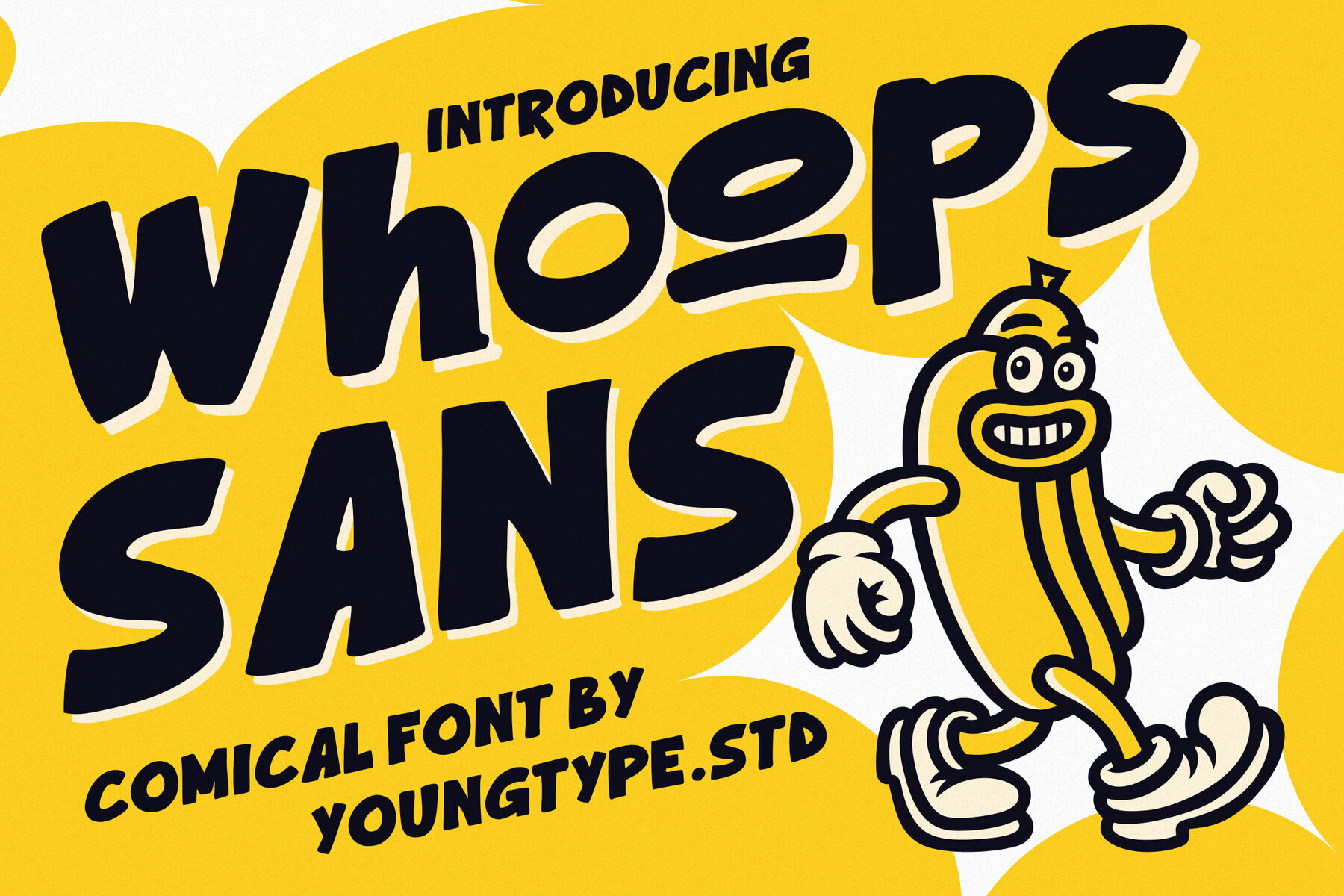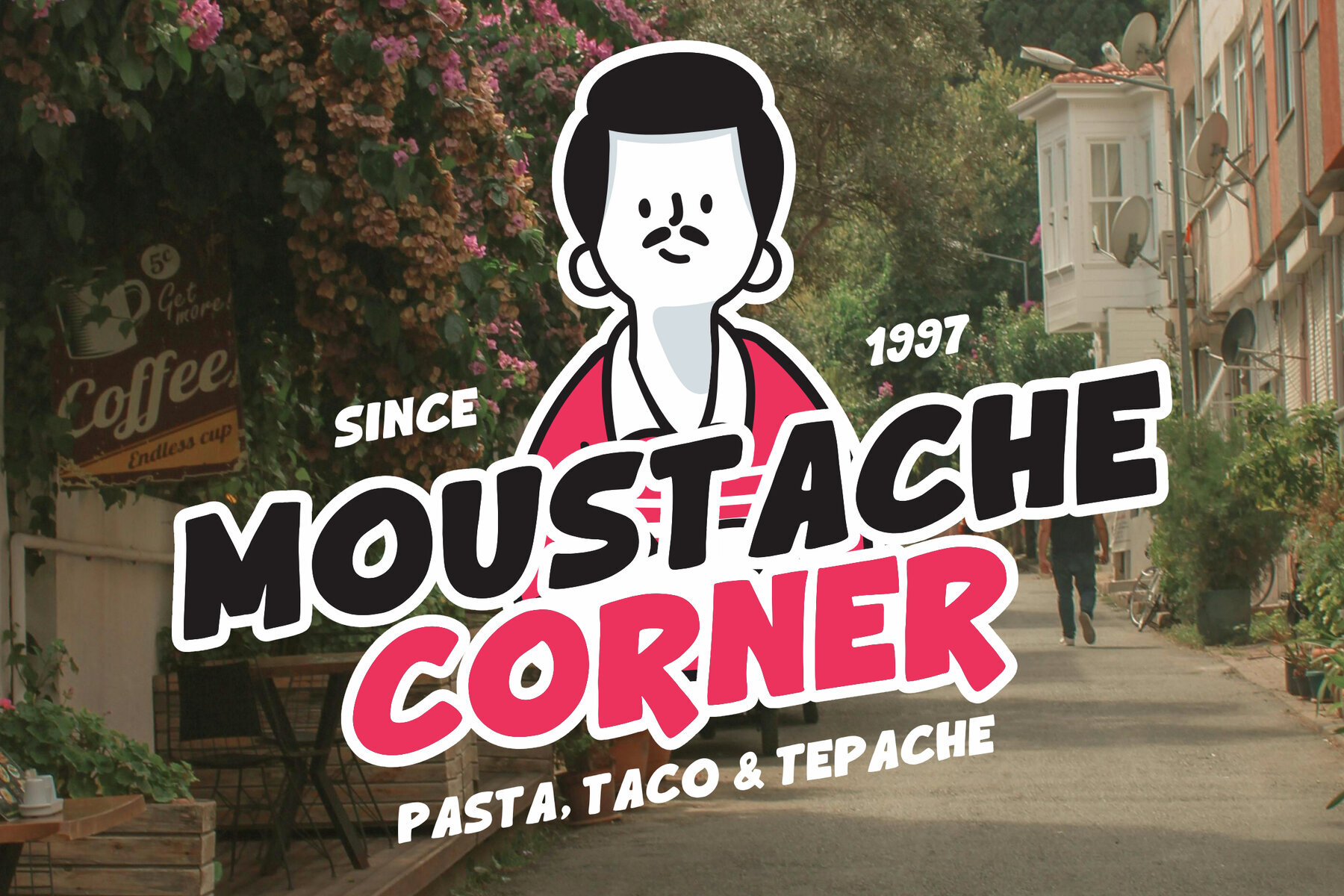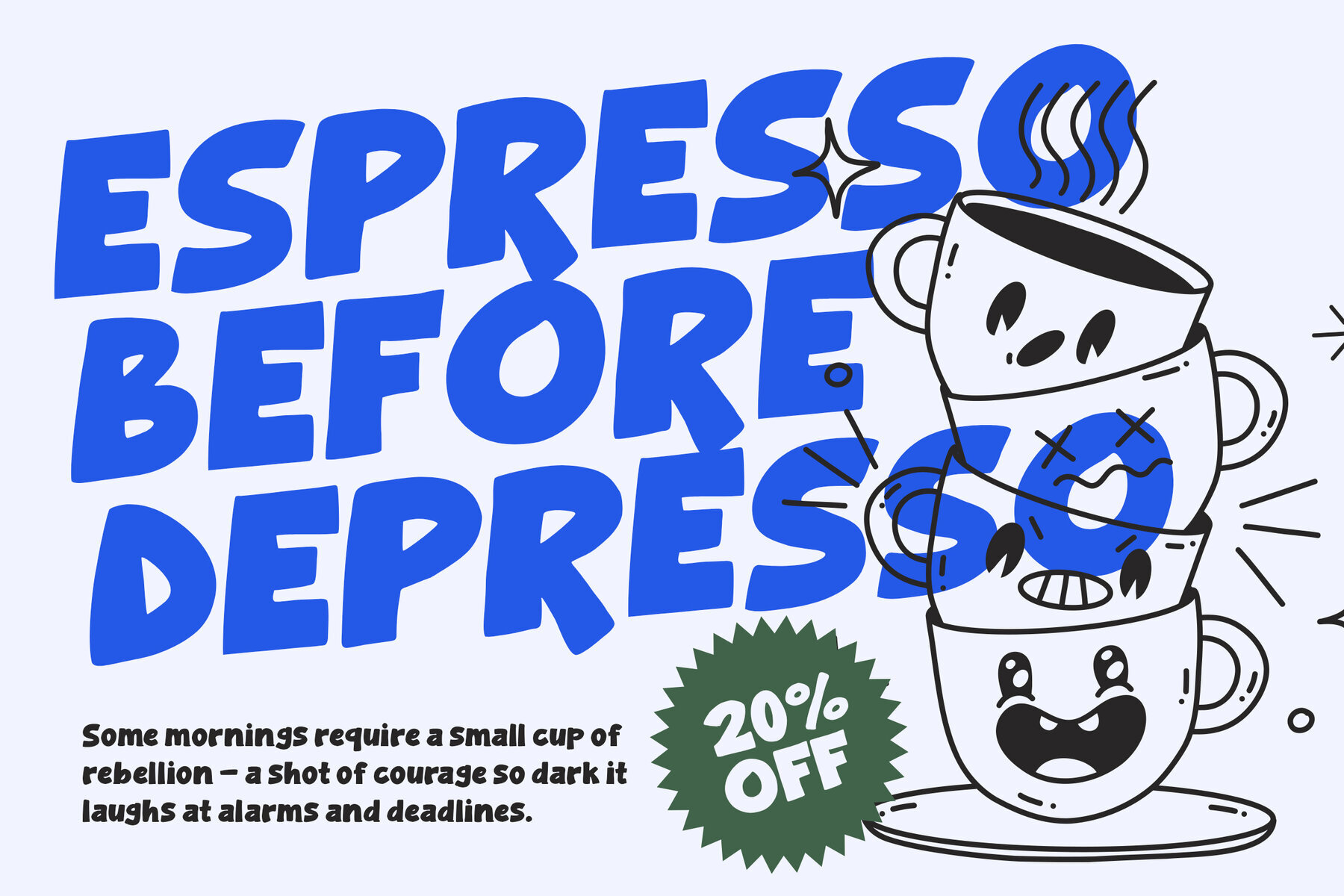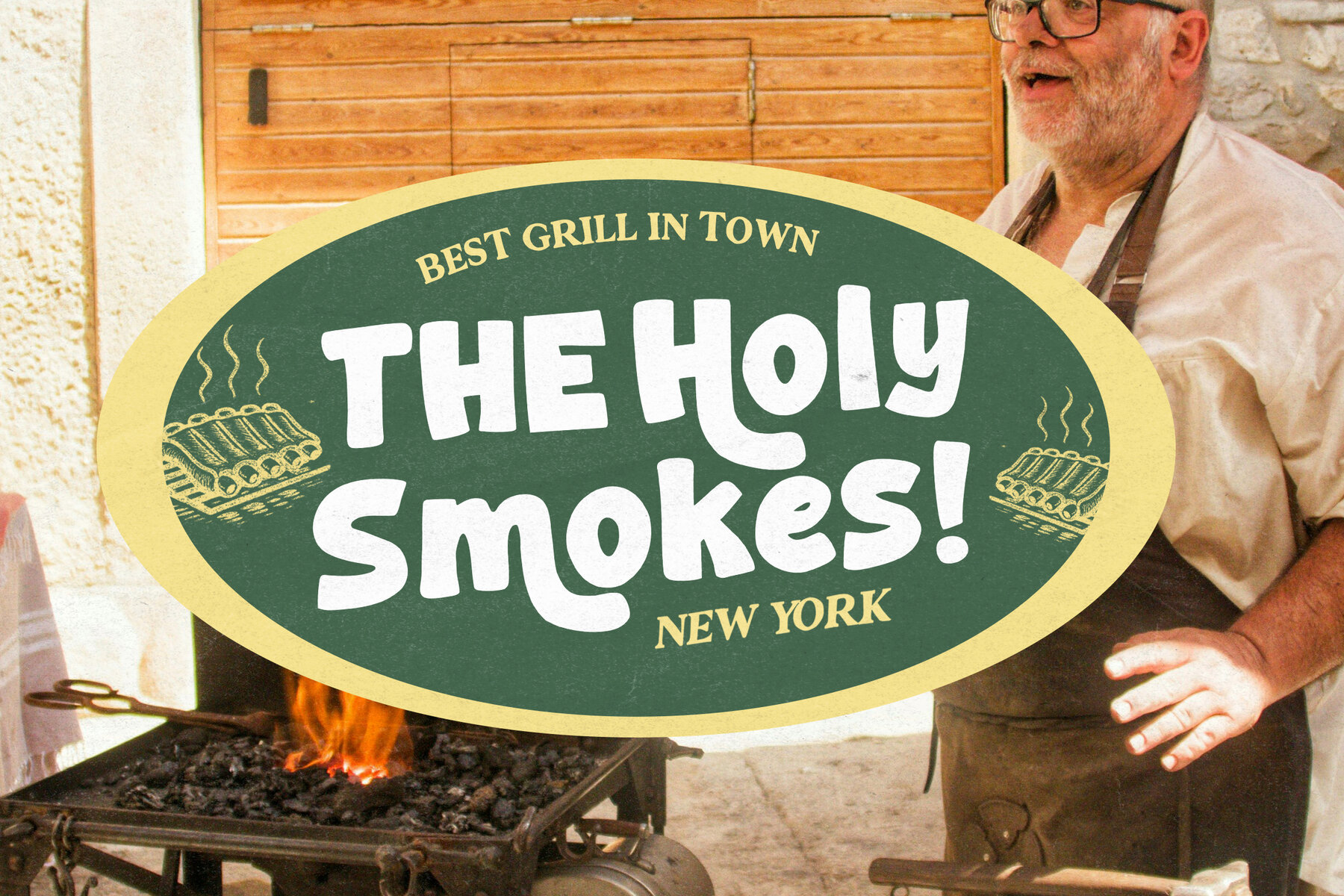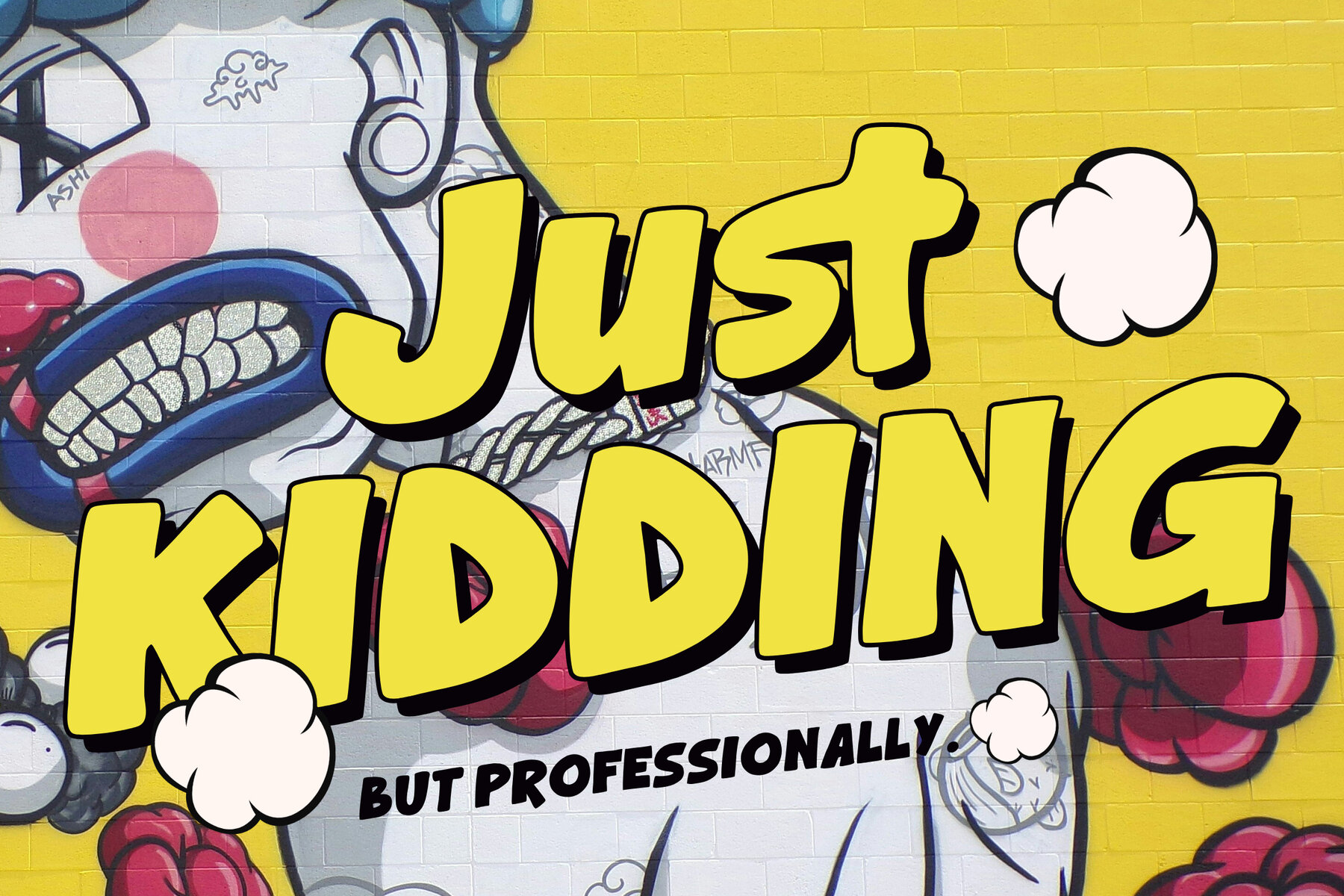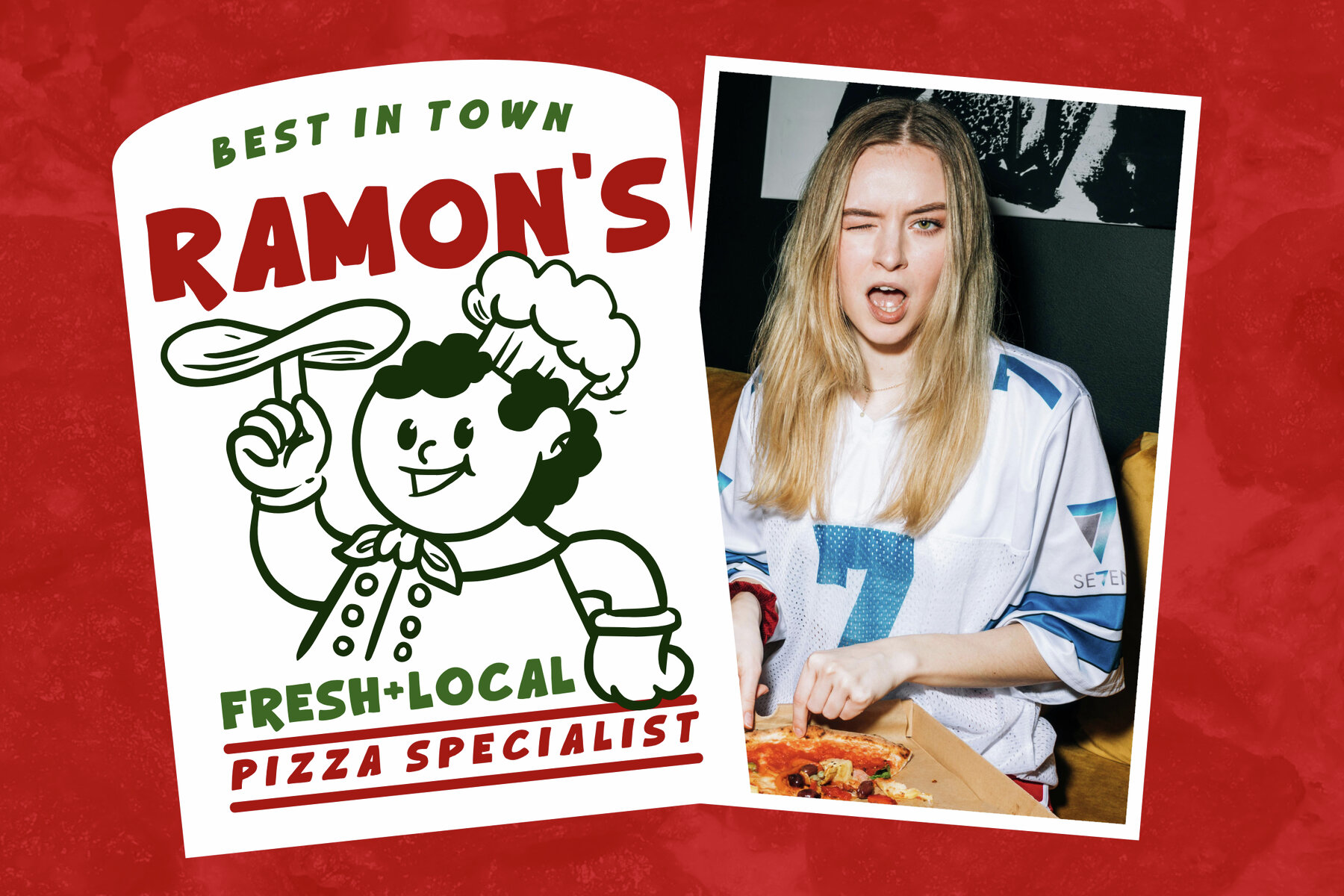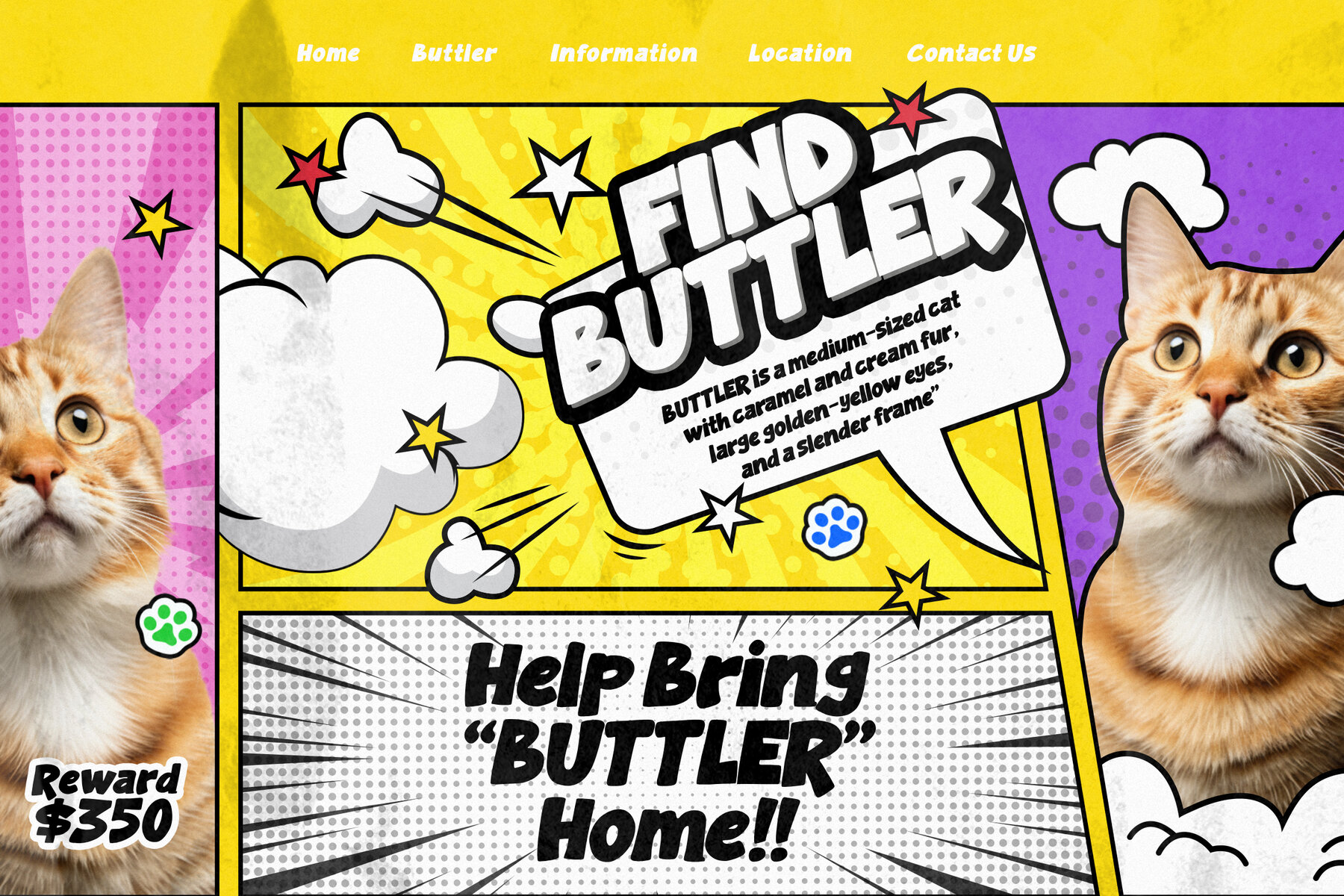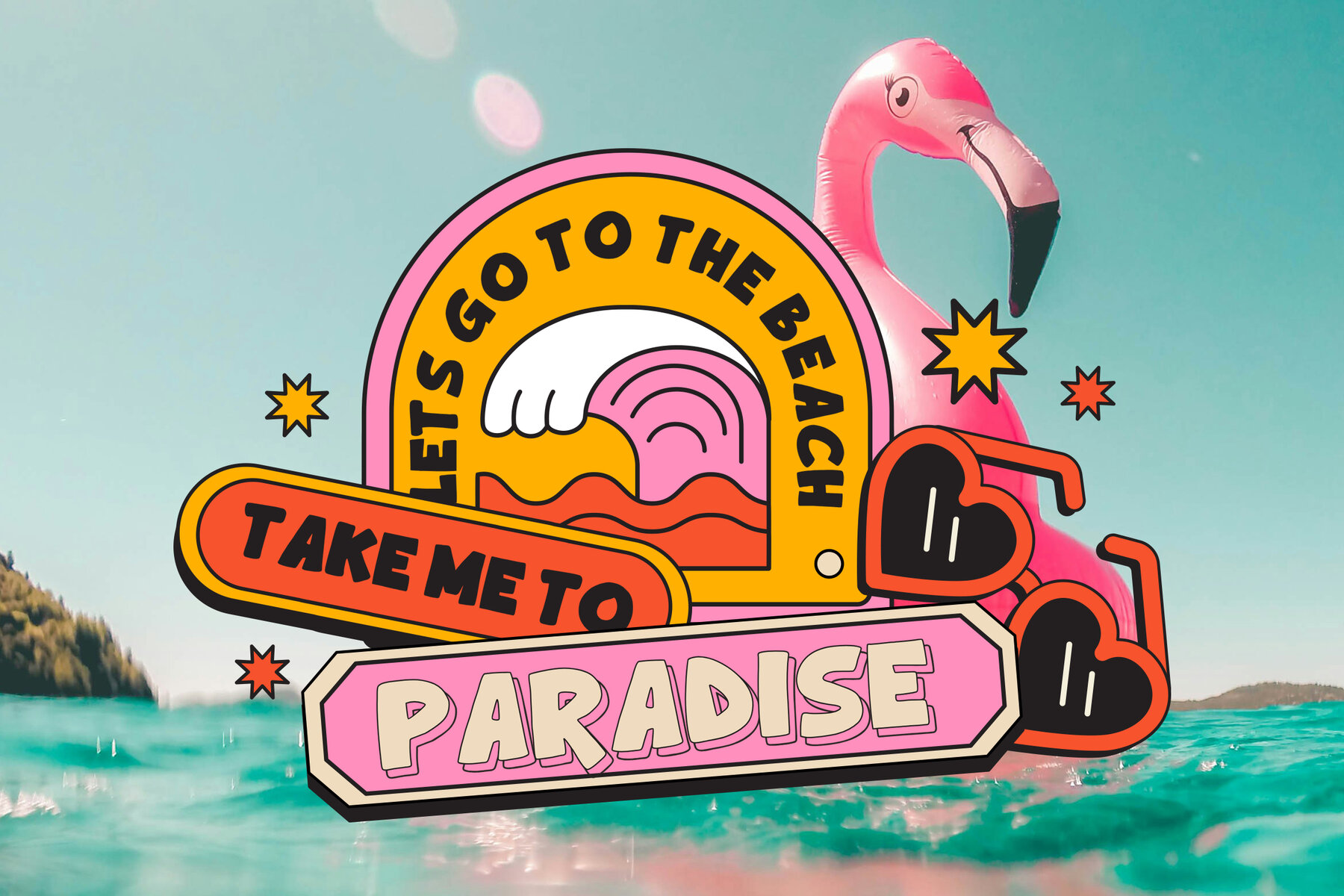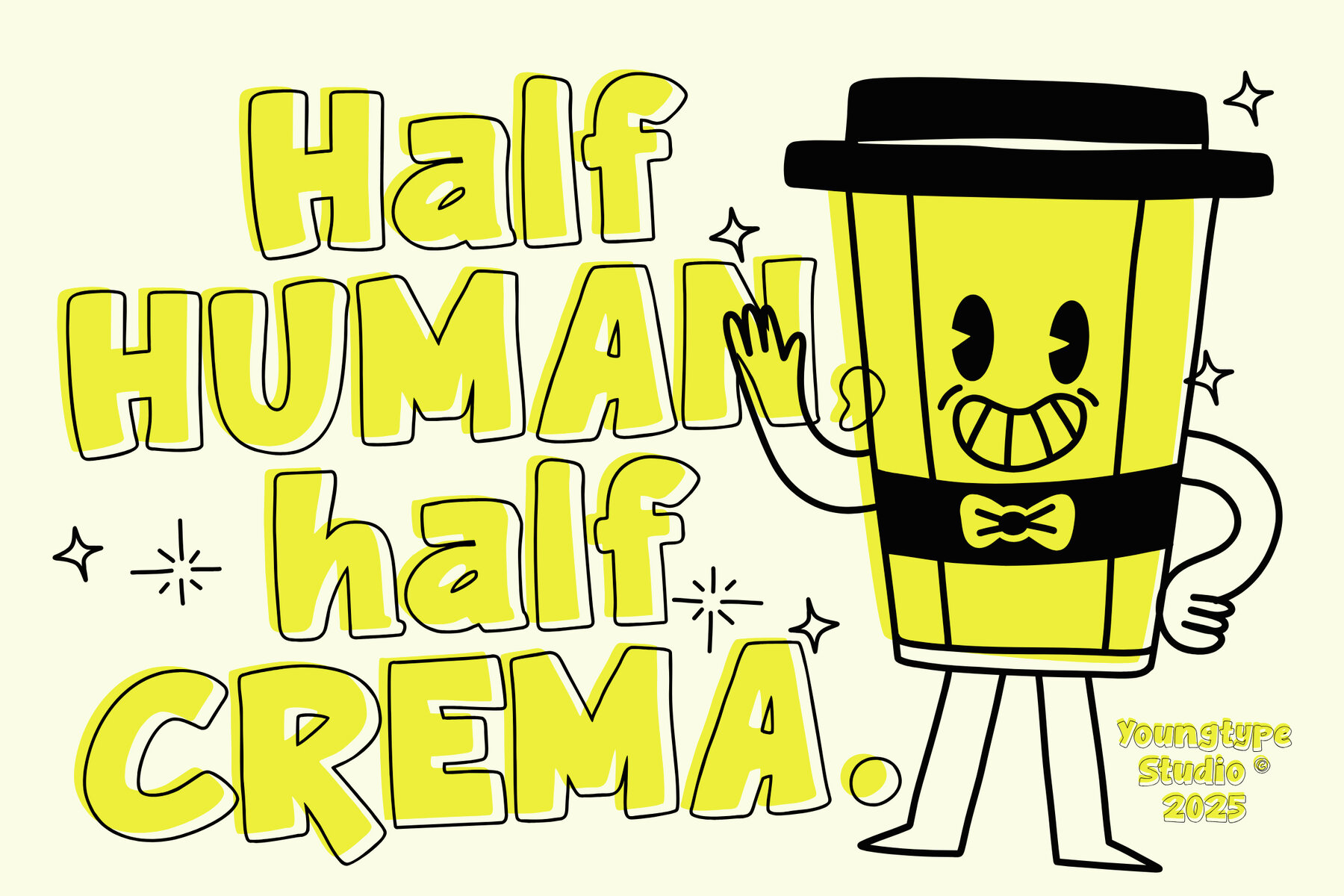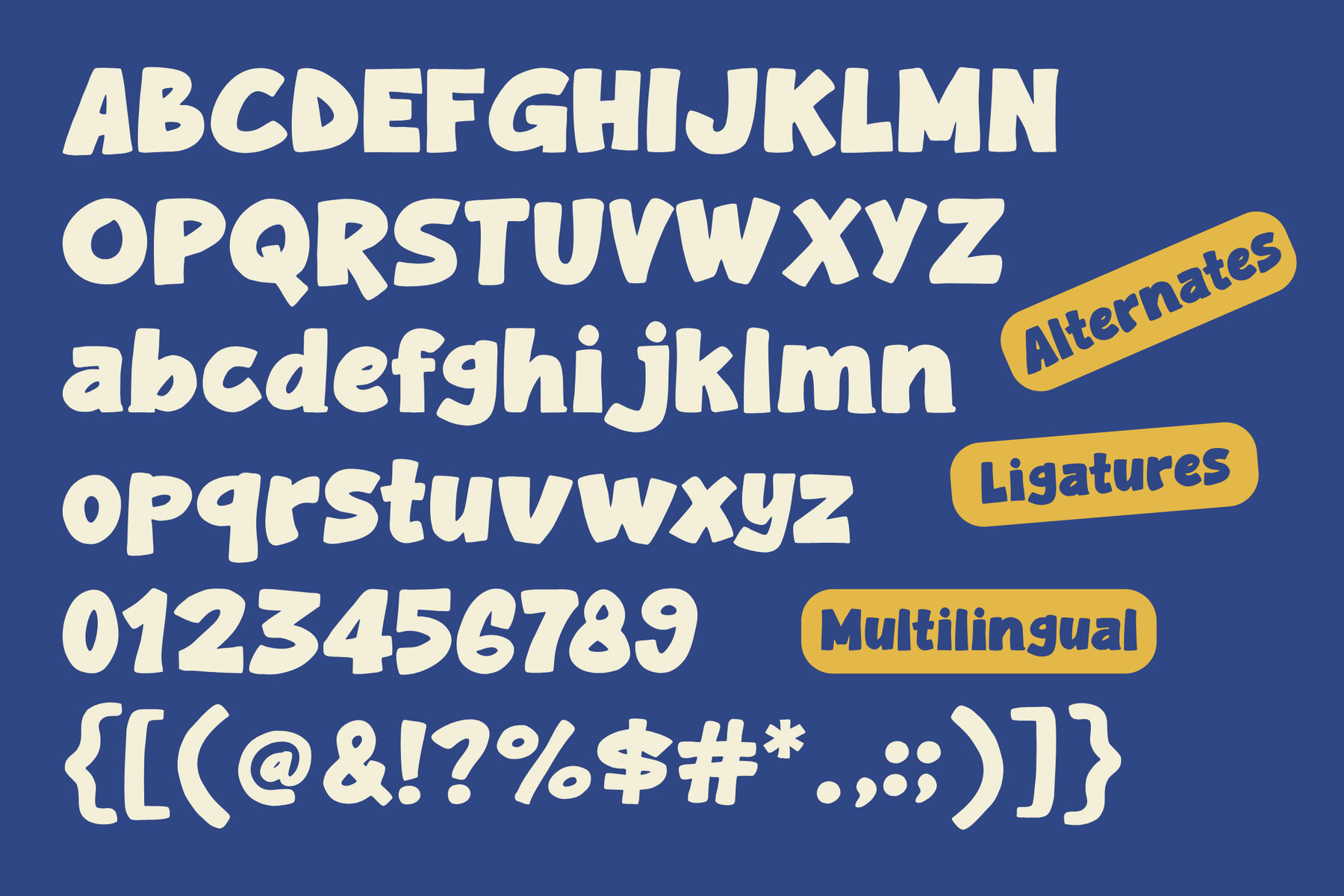
Whoops Sans Font
Whoops Sans brings a bold yet playful charm to any creative project, featuring thick, rounded letterforms that exude a cheerful, bouncy feel. This distinctive typeface infuses a cartoonish essence and energetic curves, perfectly suited for posters, children's books, packaging, and branding. Its lively personality and strong contrast ensure each word resonates with joy and confidence.Whoops Sans: A Playful Comic-Style Font